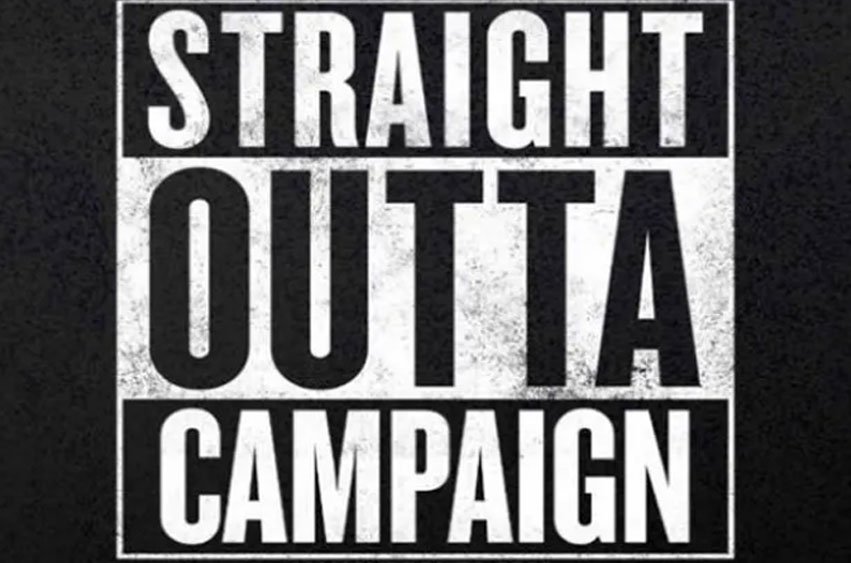
Straight Outta Campaign Font is the movie font family of the American biographical drama that aired on August 11, 2015. According to the records, the movie raked in more than $200 million at the box office, despite having been produced at a cost of $50 million; this can be said to be due to the story , as many people became interested in the story line. Straight Outta Compton employs the “Knockout Font” or the “Compacta Font”; the latter is one of the most typical fonts applied in logo design. Thus, the font depends only on the family that has been chosen when developing your own logo.
Compacta font was designed by ITC and Knockout font by Hoefler & Co, both are of Sans Serif typefaces. Both font families have a nice appearance, the right style and are easy to incorporate; which are all aspects that are important in designing exclusive and expensive designs by professional designers.
Such fonts are situated in the category of popular and easily recognizable fonts that can be used in various tasks, including logo design and text for videos, banners, wedding invitation cards, labels, photographs’ watermarks, magazine covers, printing, etc. It is also reasonable to use such fonts to create an entire website.